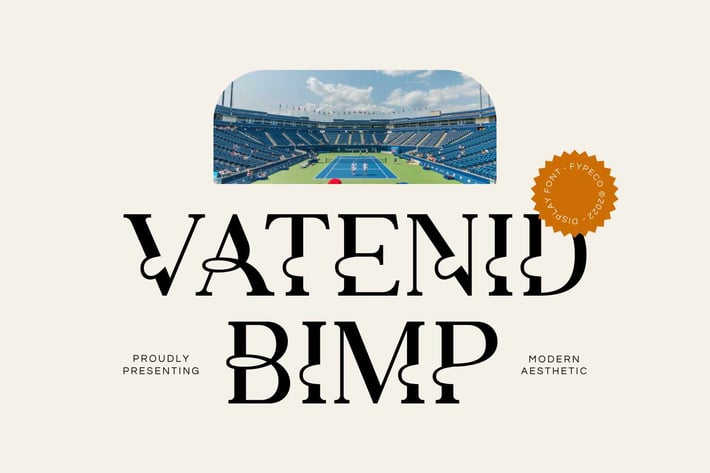
Vatenid Bimp - Modern Font
Vatenid Bimp is a unique and carefully-crafted typeface that fuses together modern and aesthetic serif letterforms. Vatenid Bimp is both legible and visually dynamic, making it perfect for branding stunning logos, quotes, magazine imagery, poster, and much more. Vatenid Bimp comes with multilingual support also.
Font Features
-Uppercase
-Lowercase
-Alternatives
-Ligatures
-Numerals & Punctuation
-Multilingual Support